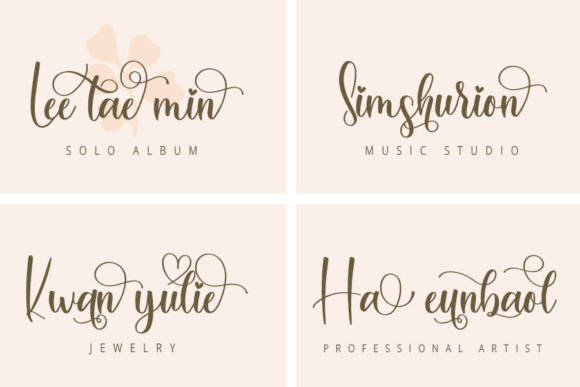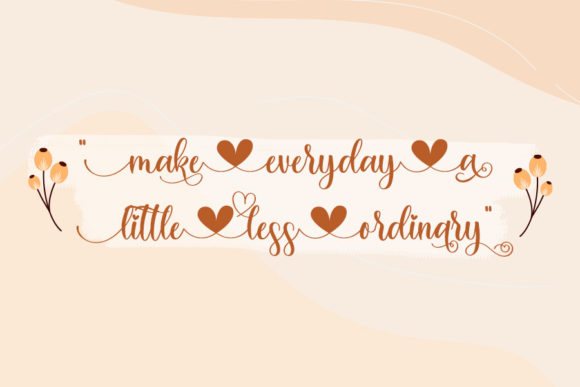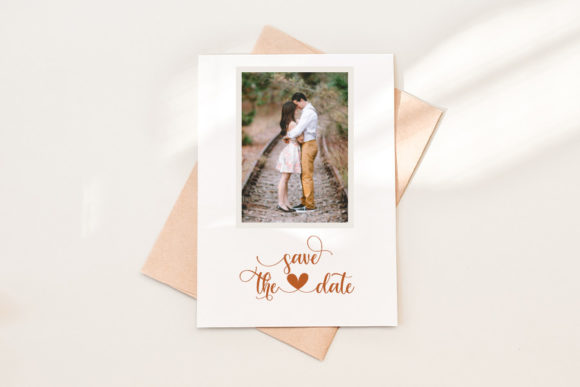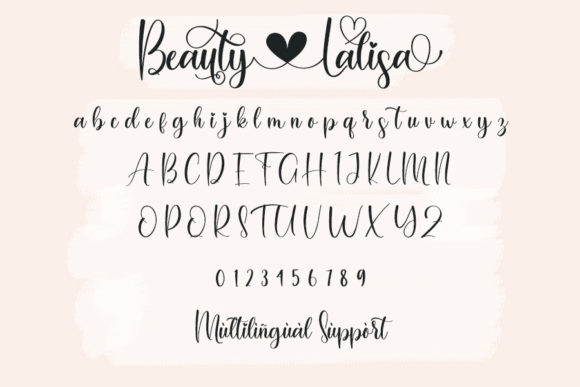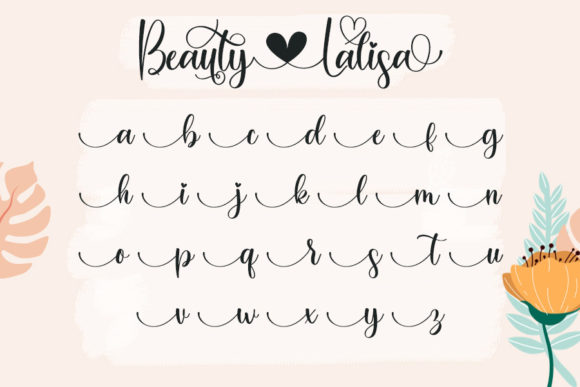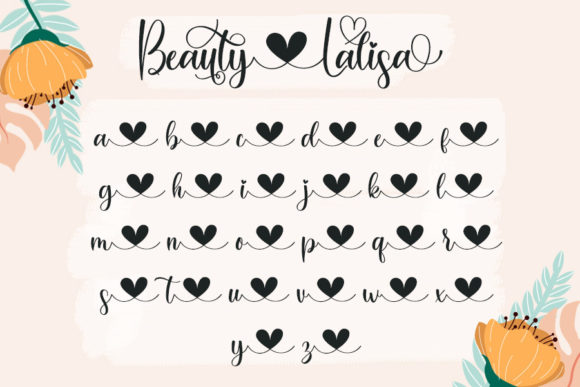
Unlock the Magic of Beauty Lalisa Font
As I sat at my desk, staring blankly at a blank page, I was determined to bring my latest design project to life. I wanted it to be perfect – elegant, sophisticated, and above all, beautiful. And then, it hit me – I needed the perfect font to set the tone. That’s when I stumbled upon Beauty Lalisa Font, a stunning calligraphy typeface that exudes romance and sweetness.
With its unique, flowing characters that dance along the baseline, Beauty Lalisa Font adds a touch of luxury to any design project. Its PUA encoding makes it easy to access the amazing glyphs and ligatures, giving designers the freedom to create something truly special. Whether you’re a seasoned pro or just starting out, this font is a valuable addition to your toolkit, guaranteed to elevate your designs and leave a lasting impression.
Beauty Lalisa Font Key Features
- Font Family: Beauty Lalisa Font
- Unique Characteristic: This font features a unique, bold, and playful style inspired by Lalisa Manoban, a Thai singer and member of the popular K-pop group Blackpink.
Beauty Lalisa Font Review
✨ I really love the unique and playful vibe of the Beauty Lalisa Font. It’s perfect for those looking for a font with a touch of elegance and sophistication. The font’s curves and lines are well-designed, creating a beautiful visual experience.
✨ The font’s versatility is another strong point, as it works well for both body text and headings. I’ve used it for various projects, and it never fails to impress. Whether it’s a logo, a title, or a paragraph of text, Beauty Lalisa Font always adds a touch of glamour.
⚠️ One of the main limitations of the Beauty Lalisa Font is its relatively small character set. While it’s a great font for body text, it may not be ideal for longer texts or complex documents. Additionally, the font may not be compatible with all operating systems or devices, which can be a limitation for designers who need to ensure cross-platform compatibility.
I’d give the Beauty Lalisa Font a solid 8 out of 10. While it has its limitations, its unique design and versatility make it a great addition to any designer’s toolkit. With a bit more development to address the limitations, I’d be even more excited to use this font in my projects.
Recommendation
Overall, I’d recommend the Beauty Lalisa Font to designers who are looking for a stylish and elegant font for their projects. Just be aware of the limitations and take them into consideration when choosing this font for your designs.
- Unique and elegant design
- Perfect for body text and headings
- Works well for logos, titles, and paragraphs
- Relatively small character set
- May not be compatible with all operating systems or devices
Beauty Lalisa Font: A Practical Application Guide
For optimal results, use the Beauty Lalisa font in conjunction with other ornate or script fonts. Avoid using it in small font sizes, as it may become difficult to read. Experiment with different font colors and combinations to achieve a unique and eye-catching design.
The Beauty Lalisa font is ideal for:
- Wedding invitations and decorations
- Party and event flyers
- Personalized gift tags and cards
- Artistic and creative projects
Alternatives to “Beauty Lalisa Font” for Designers
Pacifico is a beautiful, elegant, and sophisticated font that is perfect for luxury brands, fashion designers, and those who want to convey a sense of high-end quality. It has a more classic and traditional feel compared to Beauty Lalisa Font, which has a more modern and trendy look.
When to use: Luxury brands, high-end fashion, elegant designs, and sophisticated websites.
Comparison: Pacifico is a more classic font, while Beauty Lalisa Font is more modern. Pacifico has a more subtle and refined feel, whereas Beauty Lalisa Font is bolder and more attention-grabbing.